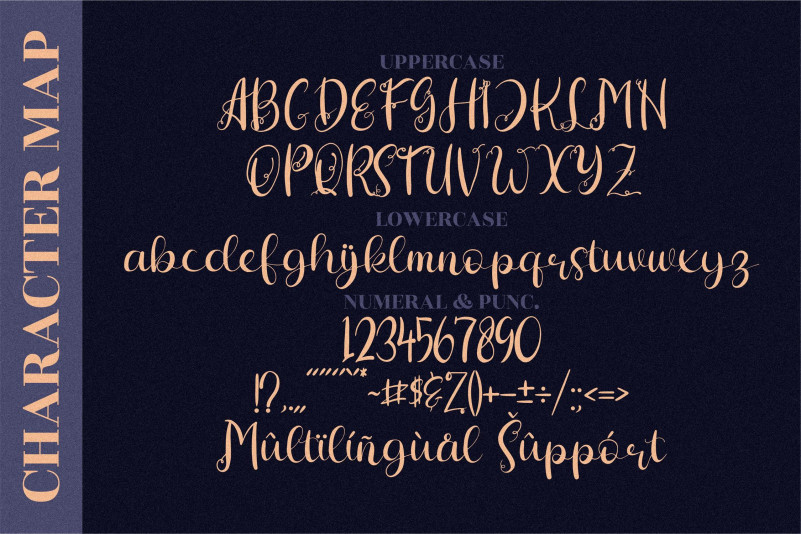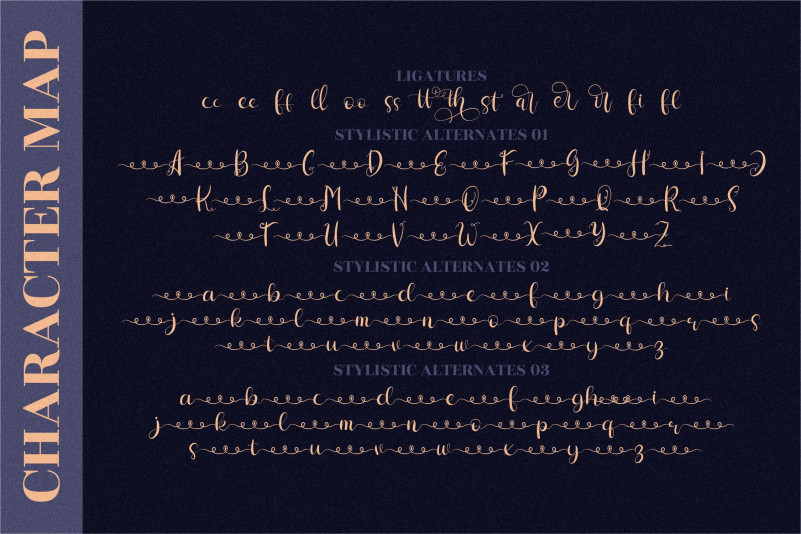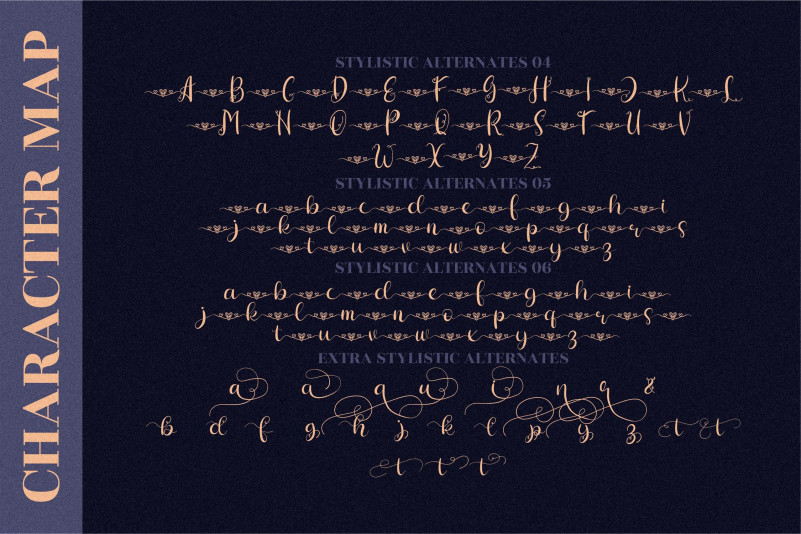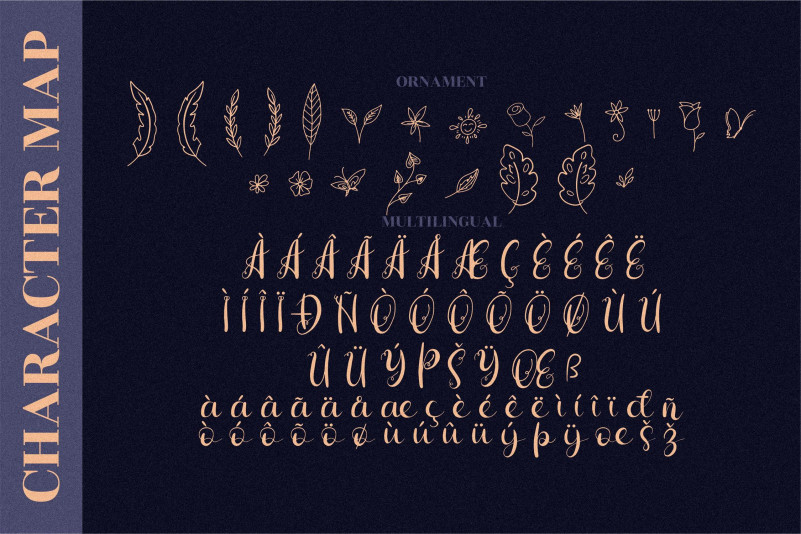
Hiratheria Font
Hiratheria Calligraphy Font
This is a ravishing script font. This font is neatly crafted and highly detailed. Whatever the topic, this font will be a wonderful asset to your font library, as it has the potential to enhance any creation.
This font is PUA encoded which means you can access all glyphs and swashes with ease!